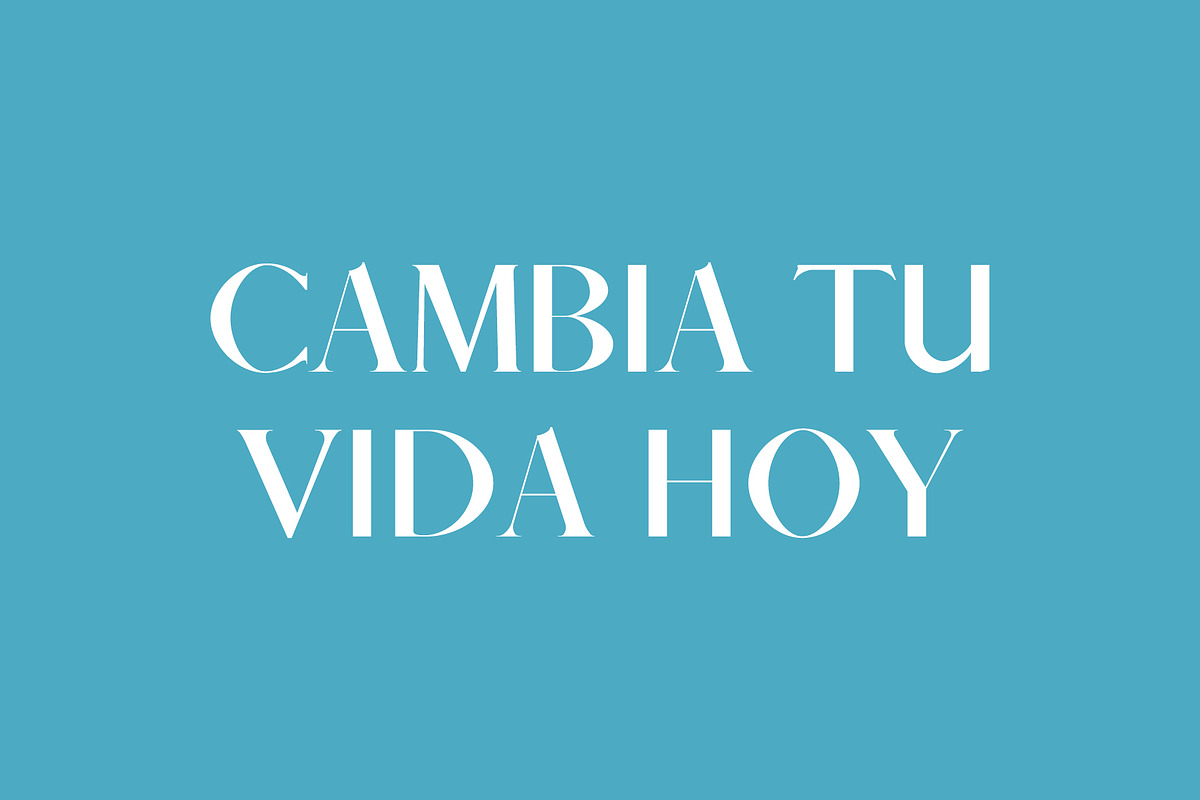
Afrah Serif Font Family Pack
Afrah Serif Font Family Pack is a beautiful serif font comes with 5 different weights. It includes all basic glyphs with Non-English characters. It can be used for headlines, posters, branding, packaging, presentations, logo, quotes, titles, magazines headings, web layouts, advertising, invitations, packaging design, books, and nearly any creative design.
Included Features:
- Font Weight: Regular, Thin, Light, Round and Bold
Afrah Font Features:
- Uppercase Letters
- Lowercase Letters
- Non English Characters ( Latin Supplement + Latin Extended A)